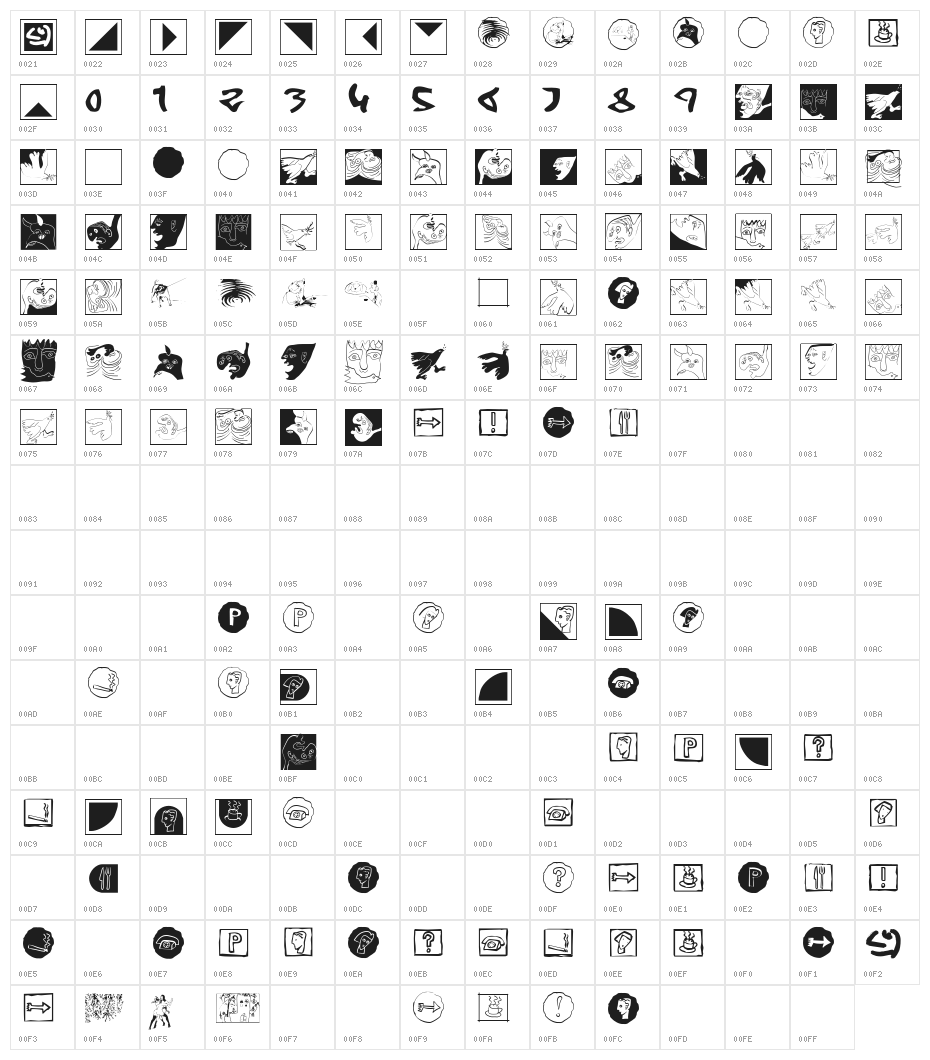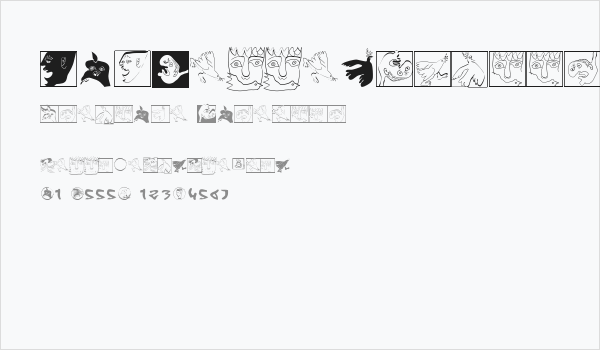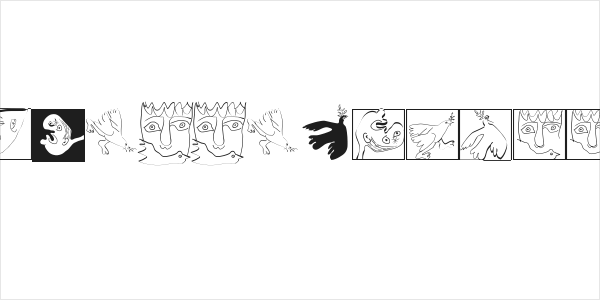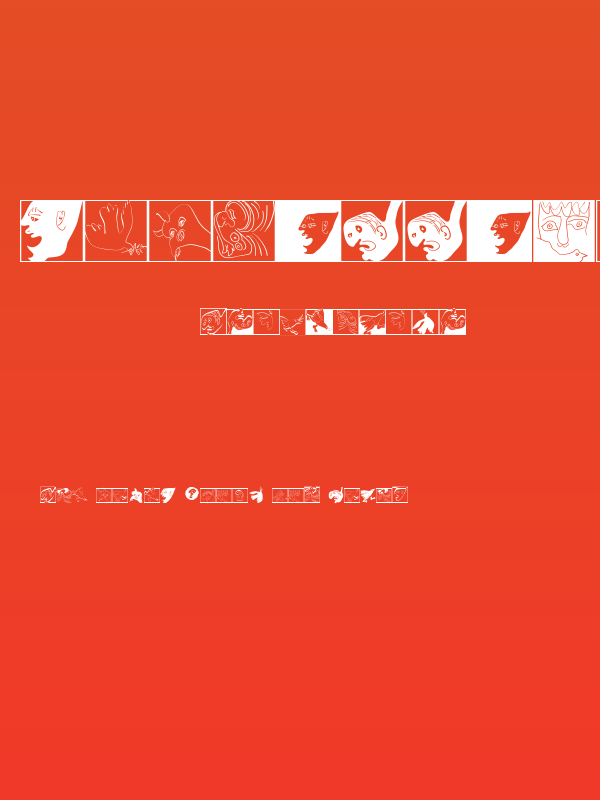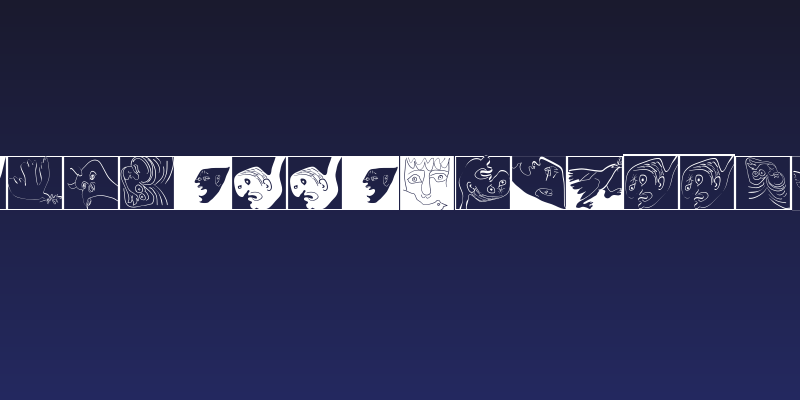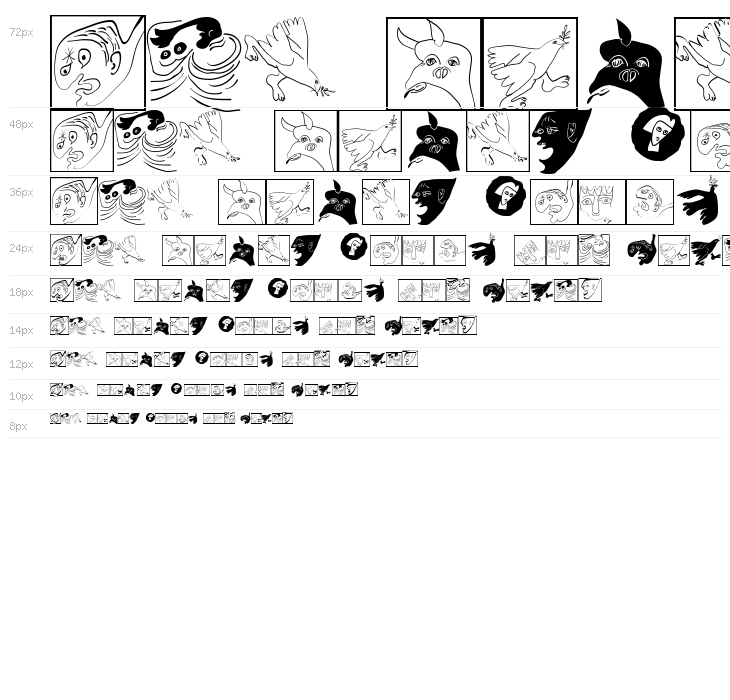
MiszellenQuattro Font
MiszellenQuattro Description
This font is a highly decorative and artistic typeface, featuring a series of abstract and whimsical illustrations within each character. The characters are composed of intricate line drawings that resemble faces, animals, and other imaginative figures, creating a playful and unique visual experience. The numbers are stylized with bold, sweeping strokes that give them a dynamic and energetic feel. The special characters are represented by geometric shapes and abstract symbols, adding to the overall eclectic style of the font. This typeface is not designed for readability in large blocks of text but rather for creative projects where visual impact is key.
Overall StyleArtistic, Whimsical, Decorative
Use CaseLogos, Posters, Artistic Projects
Proposed ProjectsIdeal for artistic projects, posters, album covers, or any design work that requires a unique and creative touch.